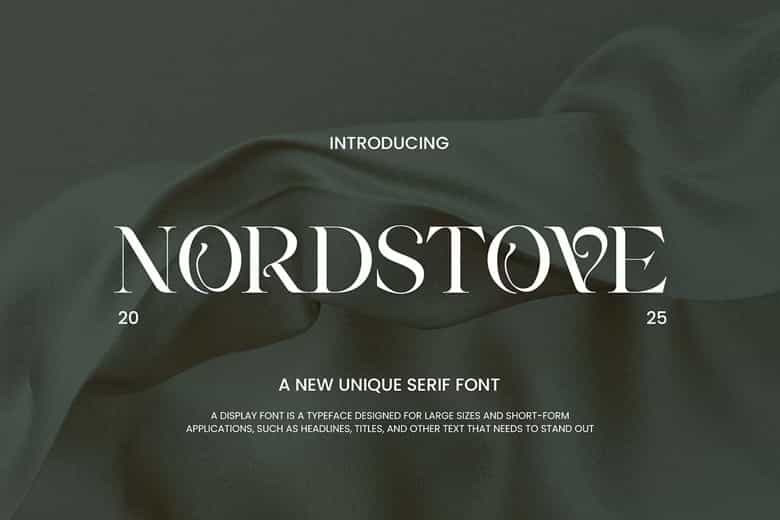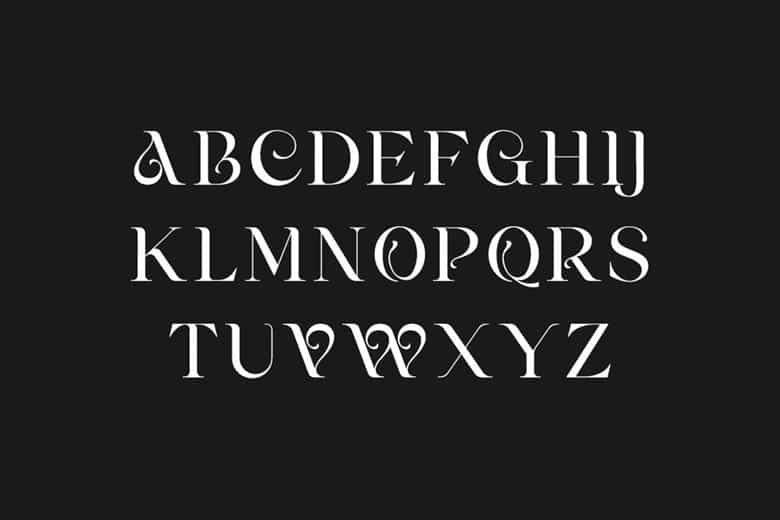
Nordstove a new unique serif font. This font is most suitable for name card, logo, wedding, any types of quotes, magazine or book covers, headline of the website and branding and etc. Fashion related branding or editorial display the aspect of both male and female oriented designs impeccably.